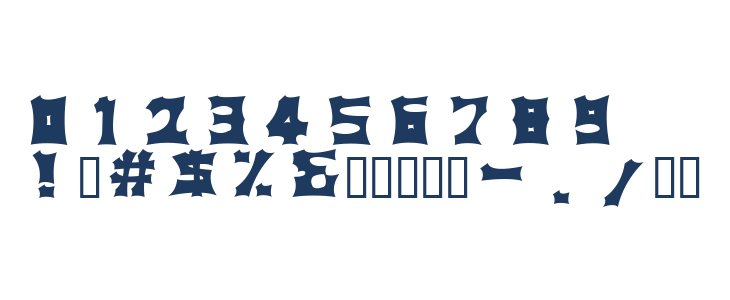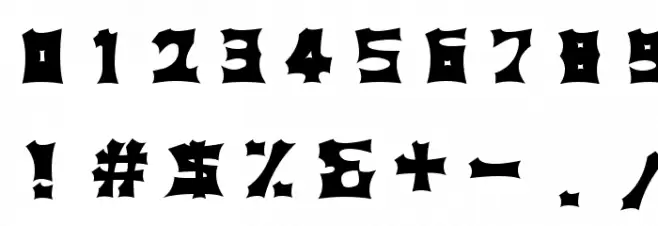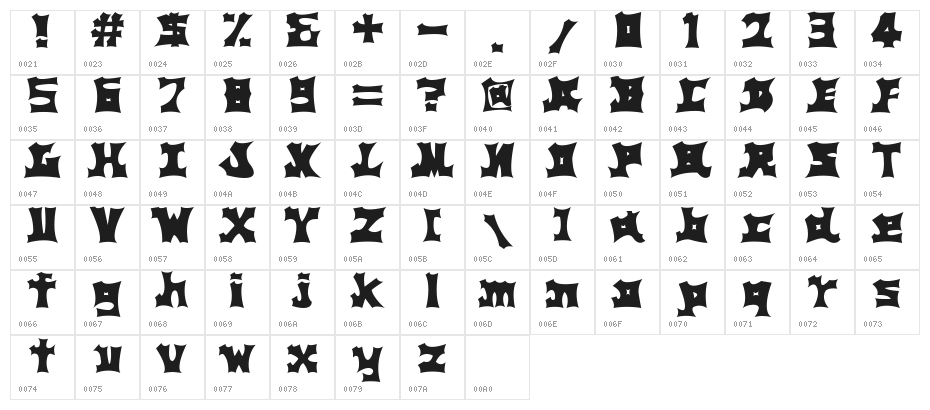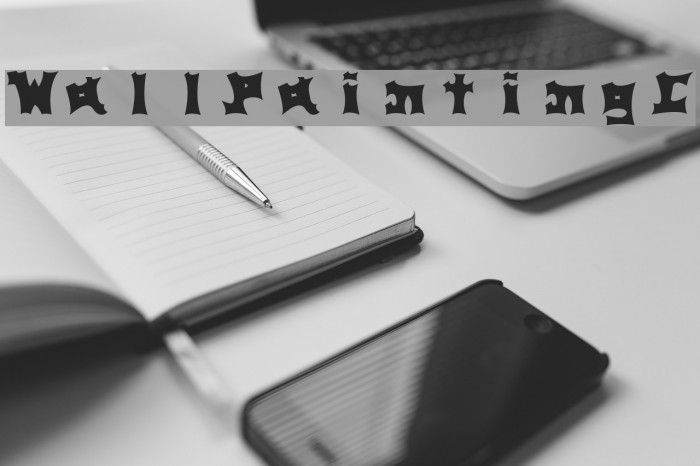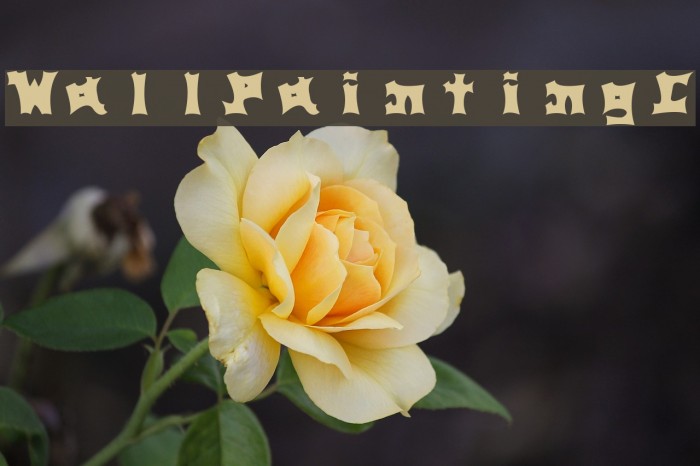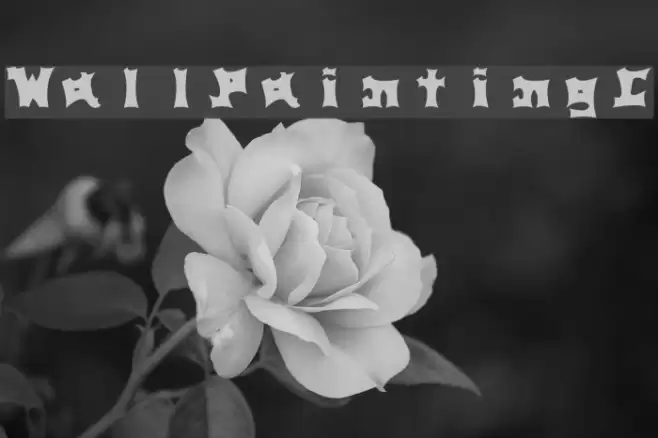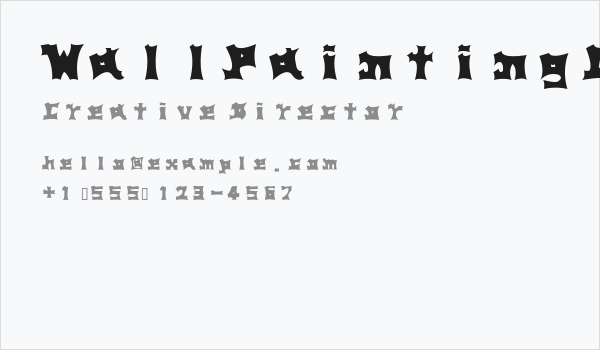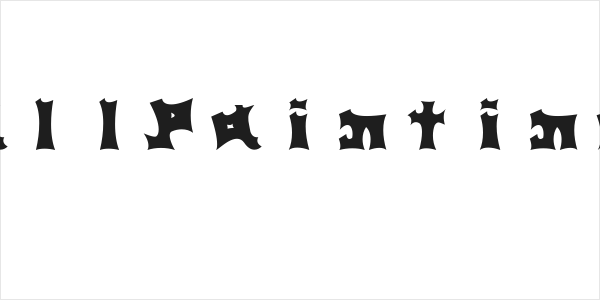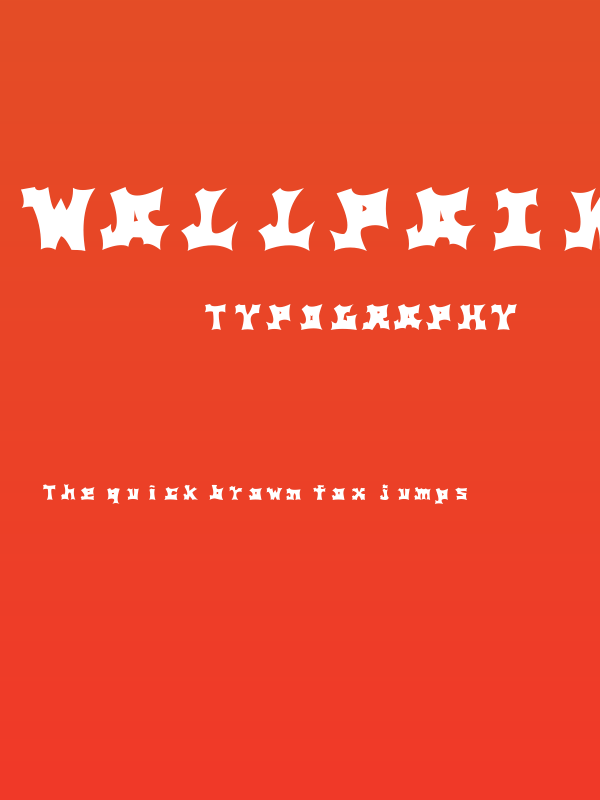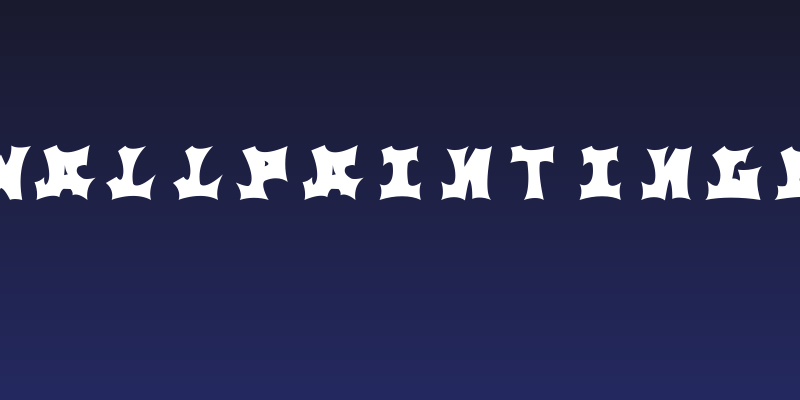
WallPaintingC Font
WallPaintingC Description
This font features a bold, dramatic style with sharp edges and a distinct Gothic influence. Each character is crafted with a unique flair, incorporating angular cuts and pointed serifs that give it a striking appearance. The uppercase and lowercase letters maintain a consistent design, emphasizing the font's cohesive aesthetic. Numbers and special characters are equally bold, ensuring uniformity across all text elements. The overall design is reminiscent of medieval script, making it ideal for projects that require a touch of historical or fantasy elements.
| Proposed Projects | Ideal for fantasy-themed designs, historical posters, book covers, and branding that requires a dramatic flair. |